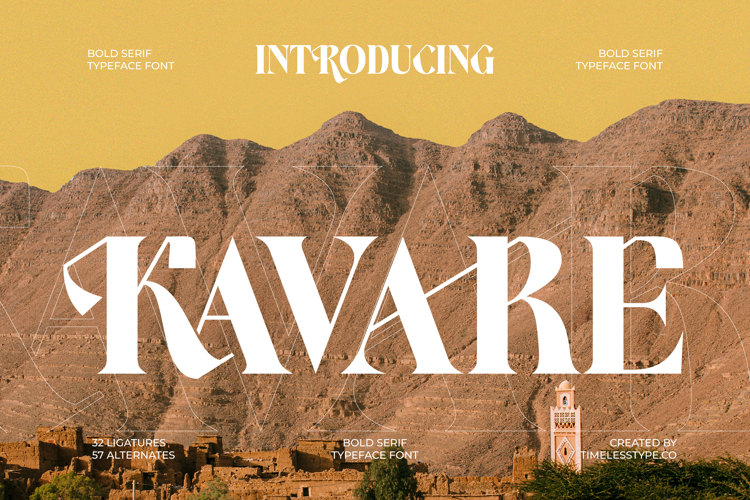
Kavare - Bold Serif Typeface
Elevate your brand's presence with Font Kavare - Bold Serif Typeface Serif Display, a striking display font meticulously crafted to command attention. This bold serif masterpiece seamlessly blends timeless elegance with a modern edge, featuring sophisticated high-contrast strokes and graceful curves that exude a sense of luxury. It's the ultimate choice for designers seeking to make an impactful statement, ensuring your creative projects resonate with unparalleled distinction and a memorable visual identity.
Discover unparalleled design flexibility with Font Kavare - Bold Serif Typeface Serif Display, engineered for the most discerning aesthetic needs. Its rich character set includes an impressive 32 ligatures and 57 alternates, offering boundless customization to achieve a truly unique typographic expression. This typeface is perfectly suited for luxury branding, high-end packaging, sophisticated editorial design, compelling headlines, and any project demanding an opulent and distinctive display.
Expand your creative horizons globally with Font Kavare - Bold Serif Typeface Serif Display, designed for universal appeal and broad compatibility. With its extensive multilingual support, Font Kavare - Bold Serif Typeface Serif Display adapts seamlessly across global markets, making it incredibly versatile for international projects. This ensures your message maintains its elegant integrity and professional polish, regardless of language or geographic target, enhancing its global reach and functionality.
Transform your visual communication with the sophisticated charm of Font Kavare - Bold Serif Typeface Serif Display, a typeface that promises to redefine elegance in your designs. Invest in this premium aesthetic to ensure your brand stands out, leaving a lasting impression of quality and refined taste. Experience the transformative power of a font that doesn't just display text, but truly showcases your commitment to professional design and superior visual storytelling.